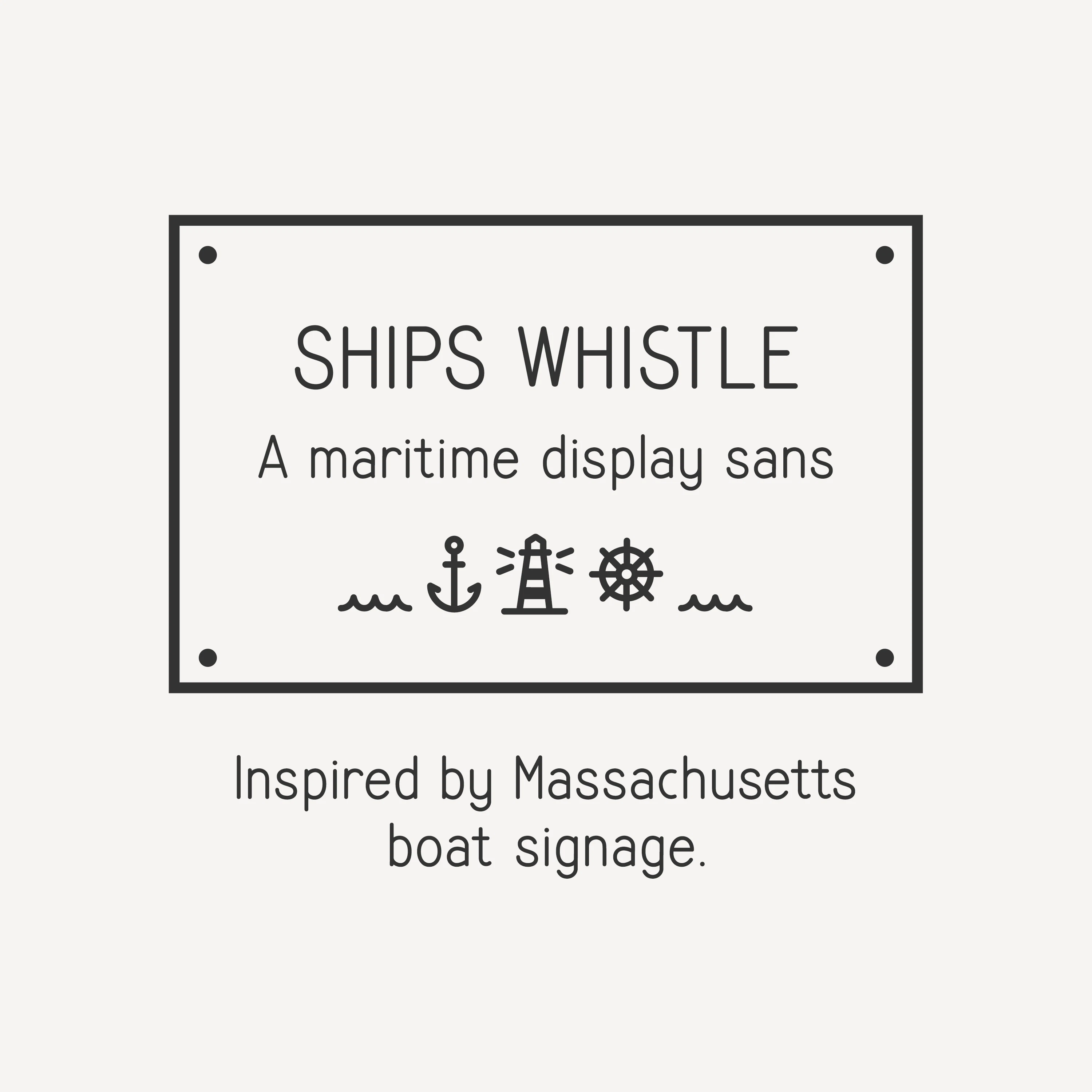
Ships Whistle Font
A monoline, sans-serif font with maritime vibes.
Inspired by lettering I found on the ferry from Woods Hole to Martha's Vineyard here in Massachusetts, Ships Whistle is a monoline, display sans-serif. Great for signage and way-finding and maritime vibes.